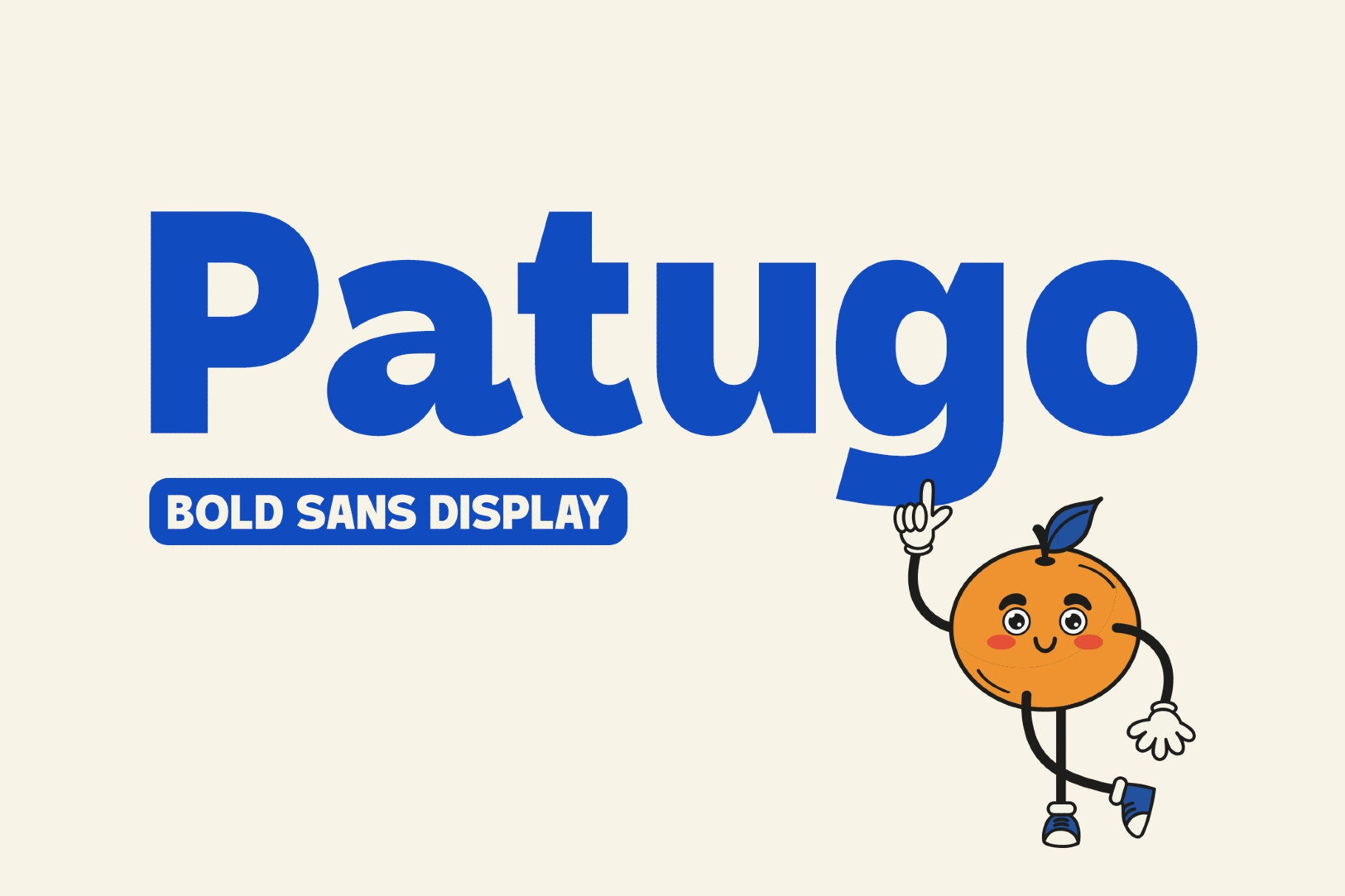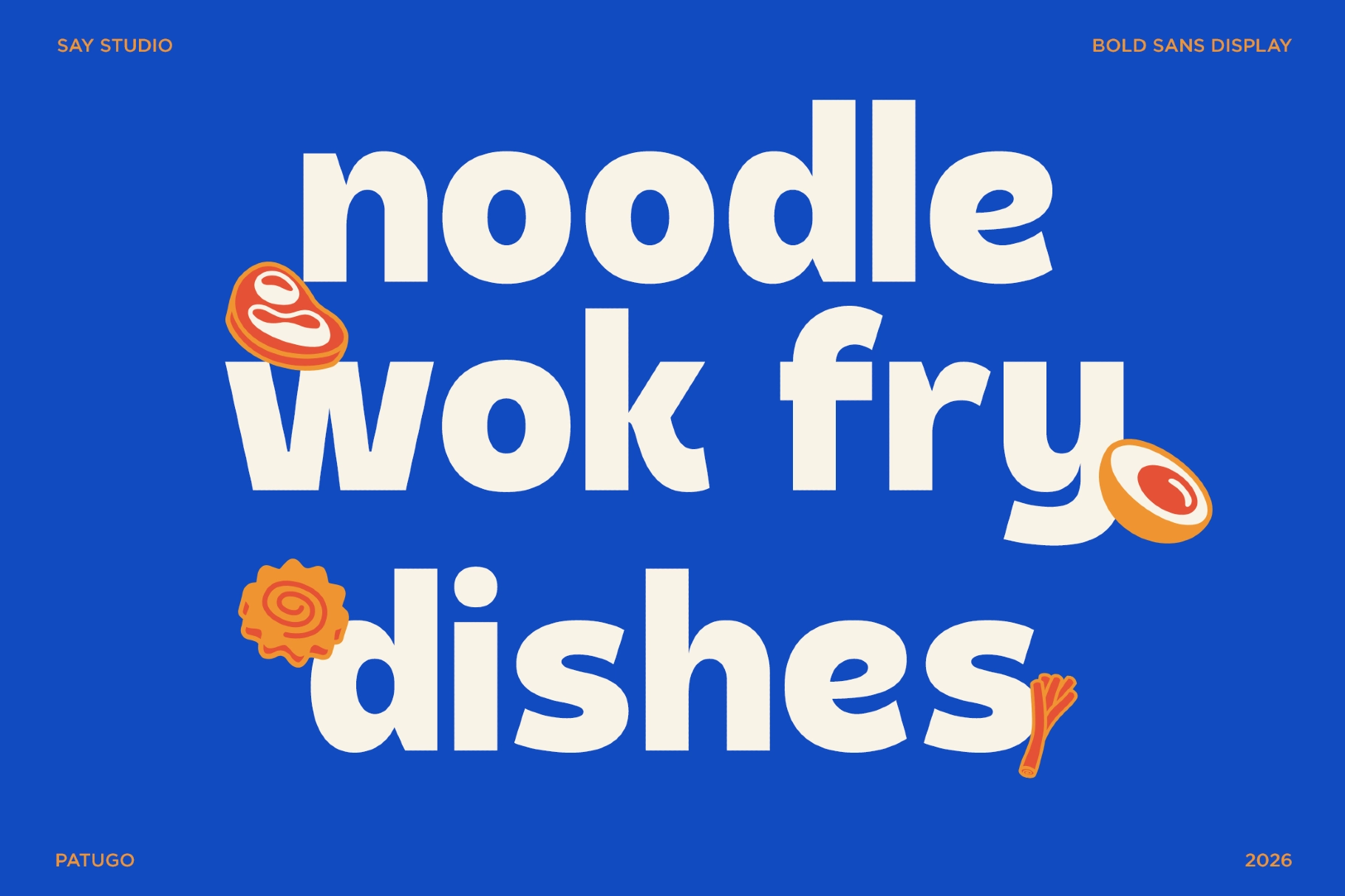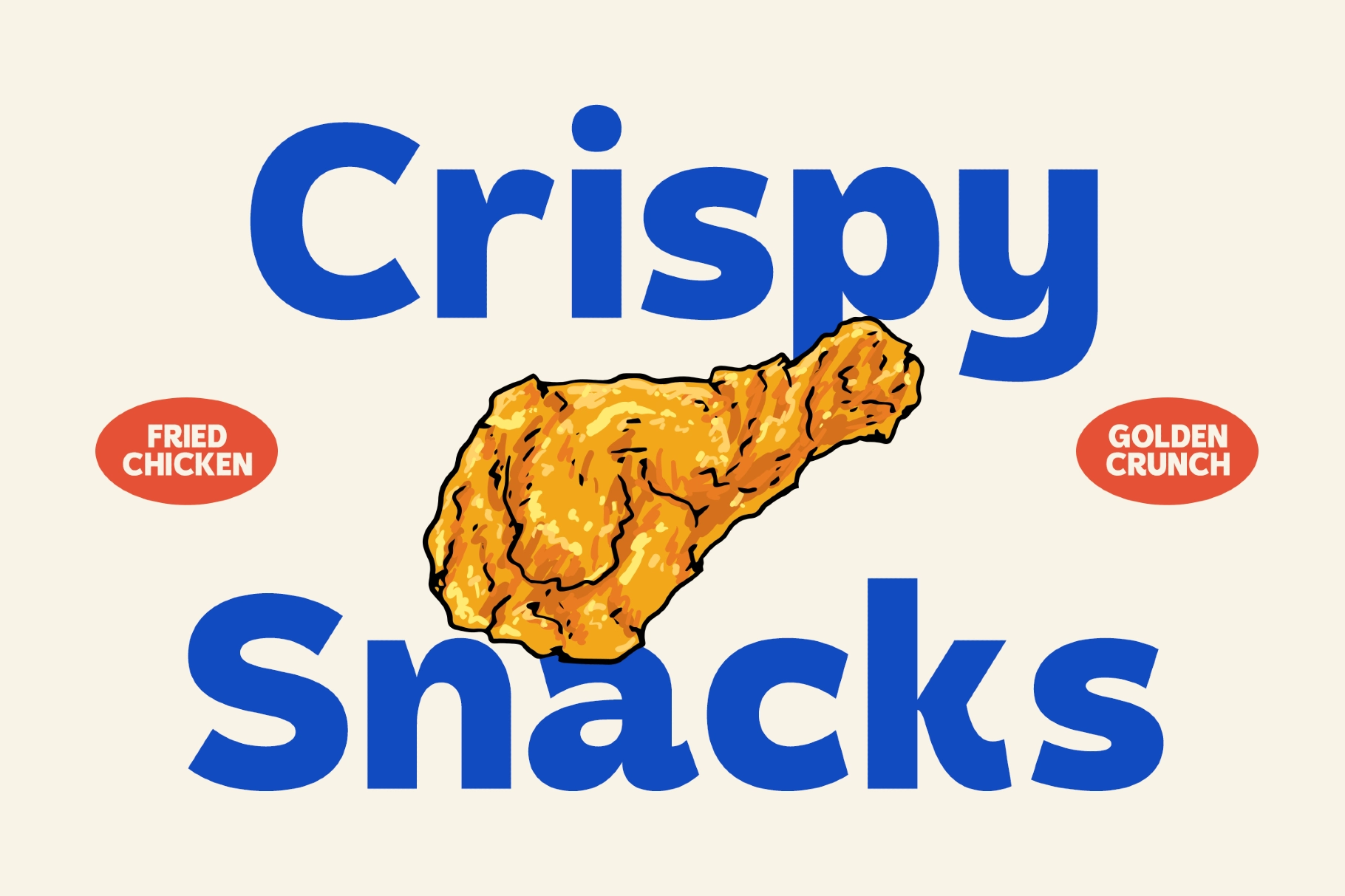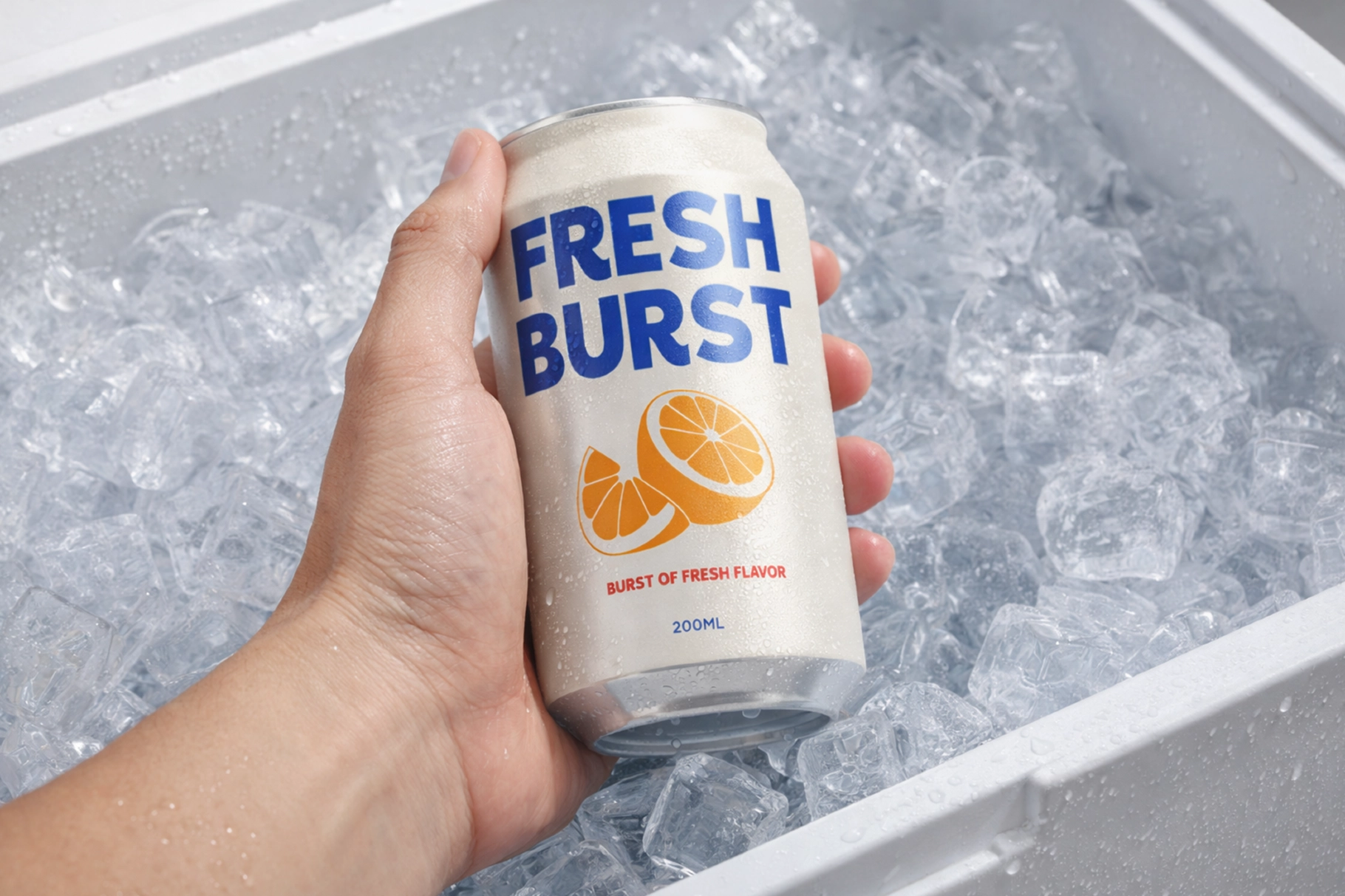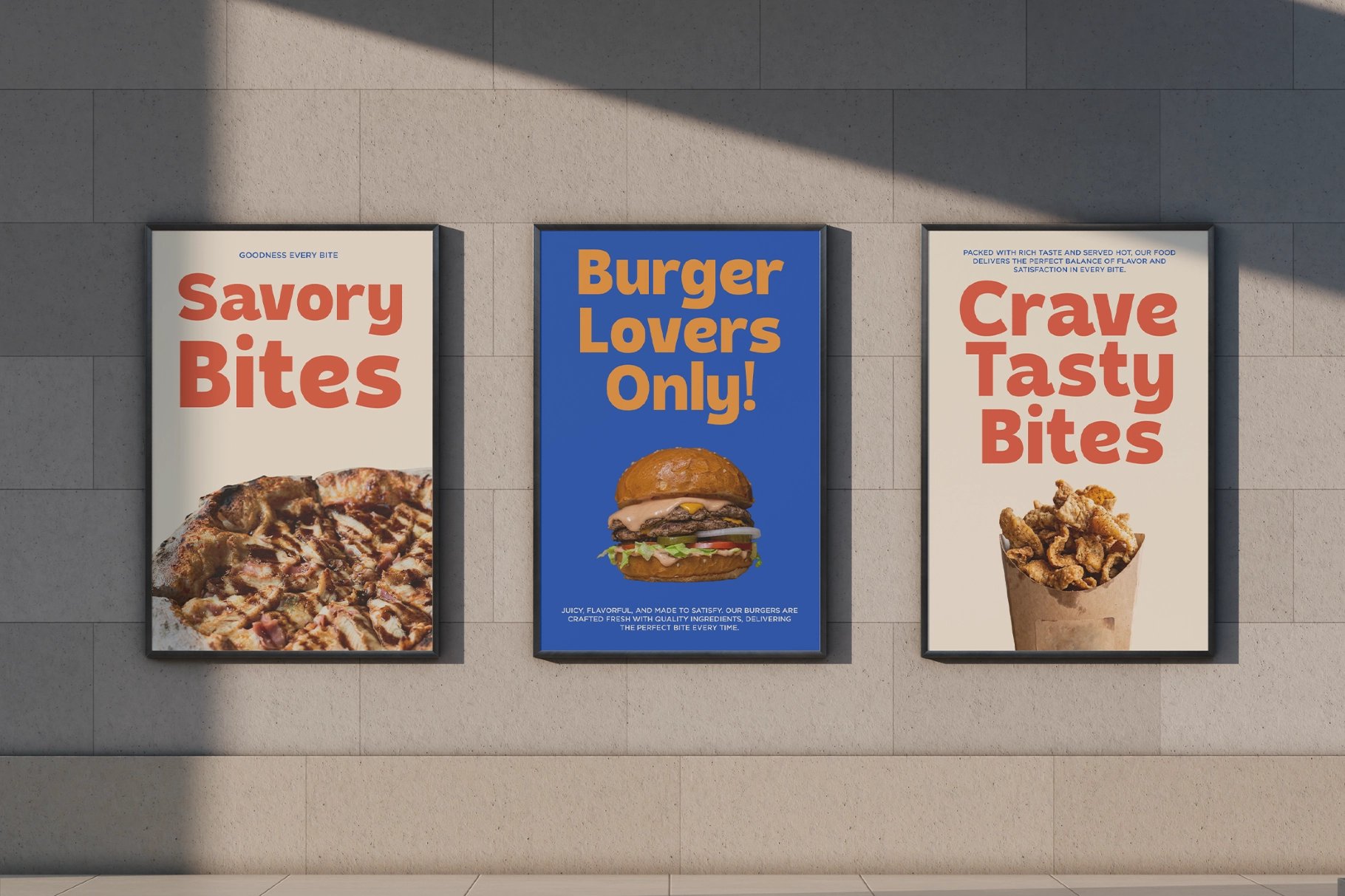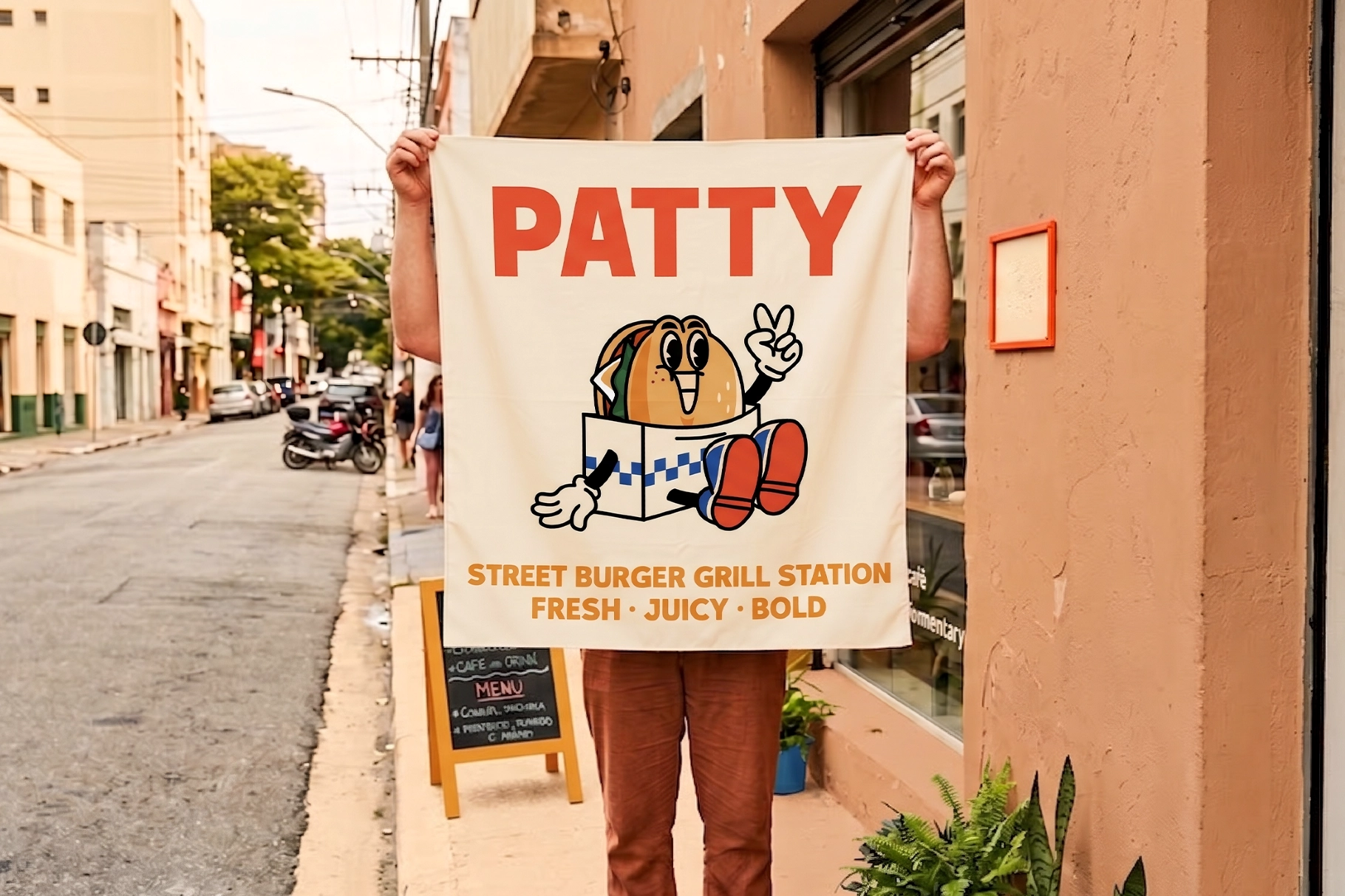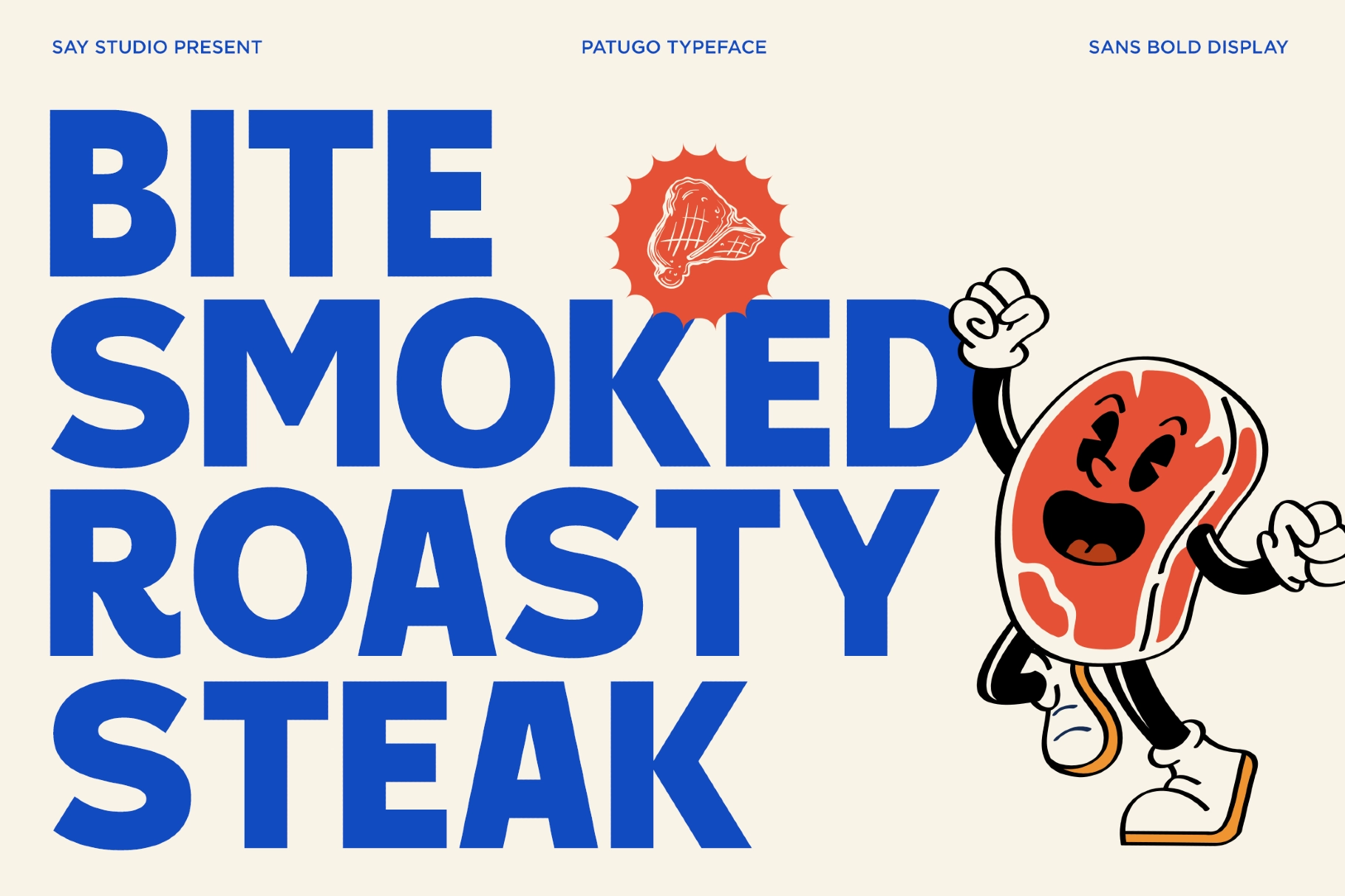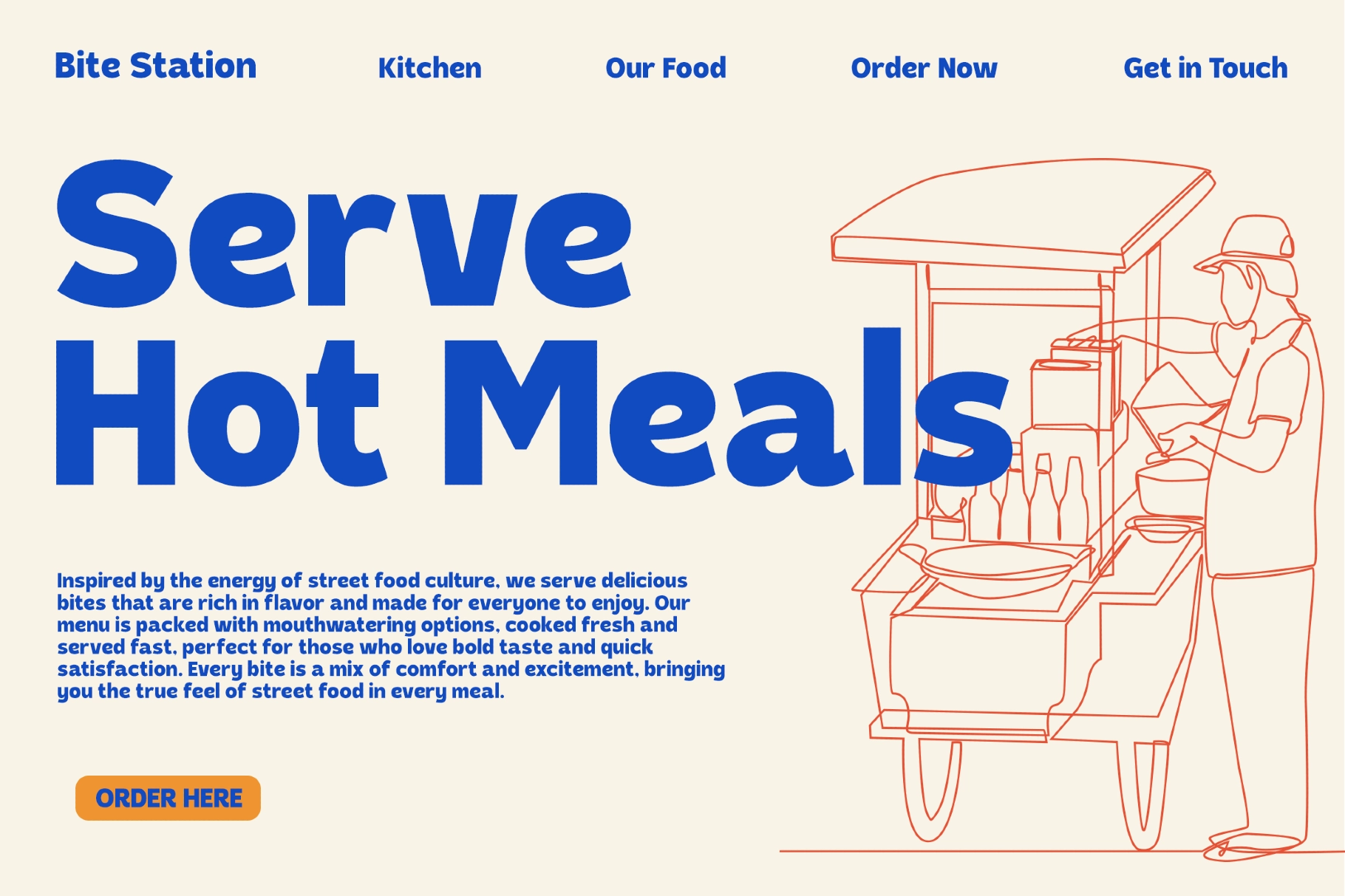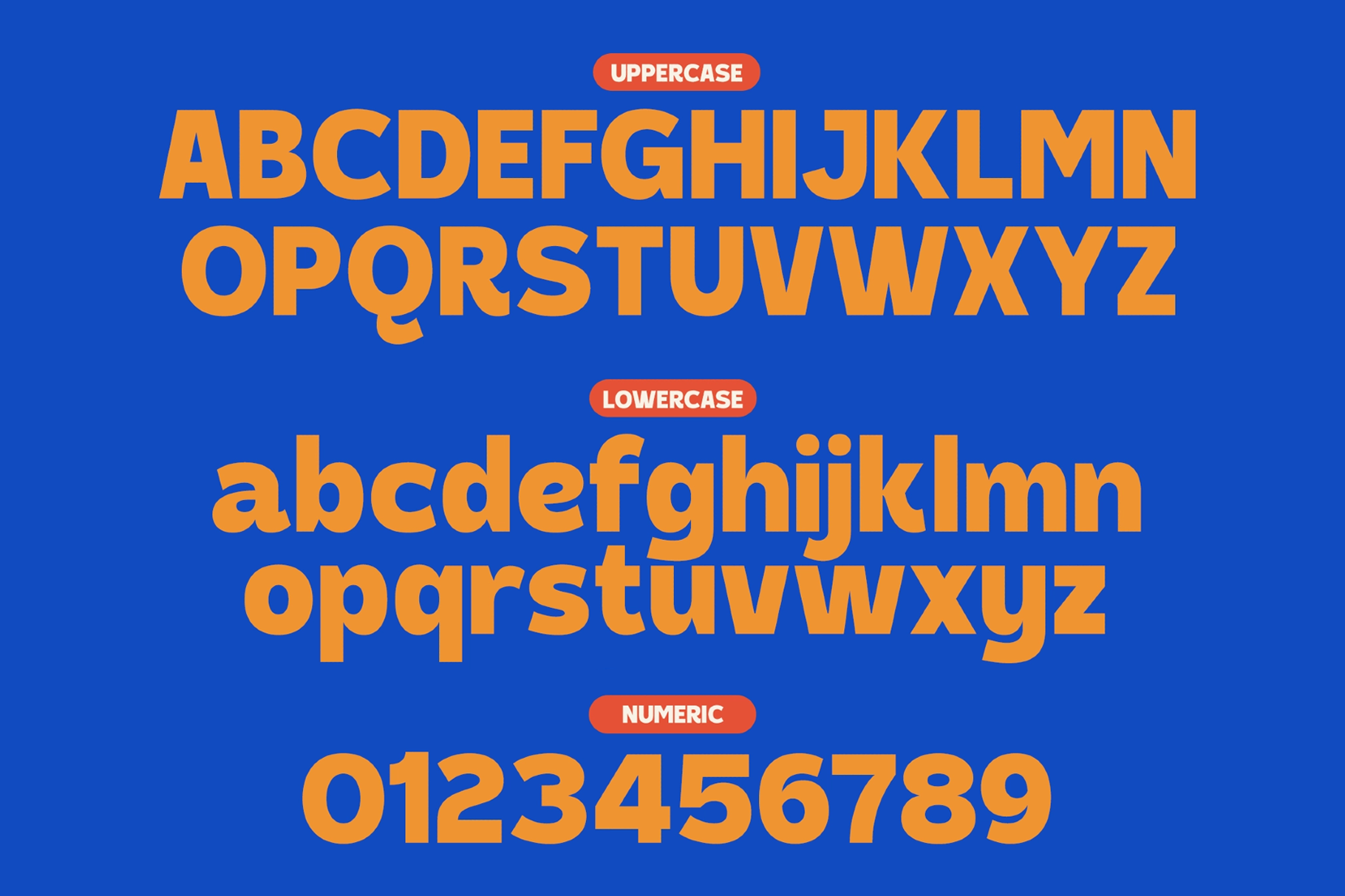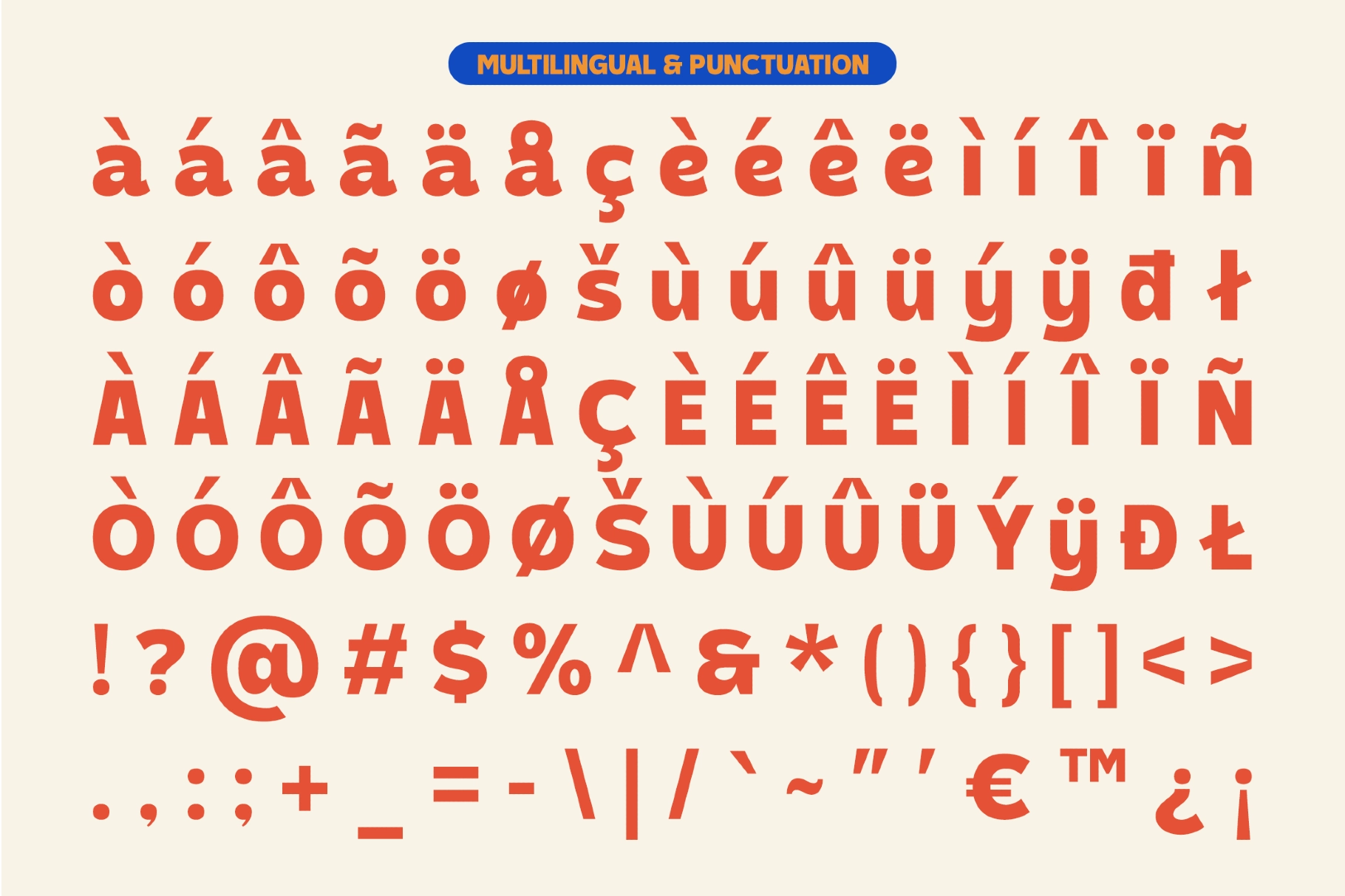
Patugo - Bold Display Sans Font
A bold display sans with oversized curves, chunky rhythm, and a cheerful graphic voice. Its playful shape language gives headlines a bright, snack-counter personality — big, simple, and ready to shout across packaging, posters, and web sections.
Patugo includes Regular and Italic styles, giving the typeface room for straight-up impact or a little extra motion. Use it for food branding, kids’ products, logo marks, café menus, social media graphics, poster titles, packaging labels, website headers, stickers, merch prints, event promos, and more.